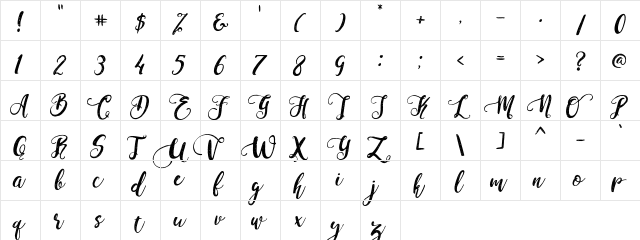
Perfume Classic Demo Version Regular
| Foundry | Ade Meiada & Eric Kurniawan |
| Designer | Eric Kurniawan & Ade Meiada |
Design Context for Perfume Classic Demo Version Typeface
Perfume Classic Demo Version has the warm character of retro typography — evoking diners, record sleeves, and the golden age of print advertising.
Font Pairing: Combine Perfume Classic Demo Version with a simple slab or neutral sans — period-accurate companions reinforce the vintage feel without competing for attention.
Pro Tip: Lean into Perfume Classic Demo Version's period character by pairing it with aged paper textures, muted colour palettes, and vintage illustration styles.